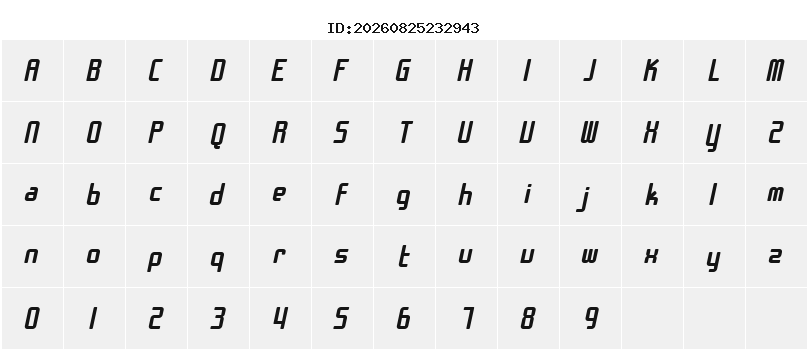
• Font Name: SF Chrome Fenders
• Font Style: Bold Oblique
• Full Font Name: SF Chrome Fenders Bold Oblique
• Designer: ShyFonts Type Foundry
SF Chrome Fenders.ttf is a modern, elegant sans-serif font designed for ultimate readability and visual harmony. Perfect for branding, headlines, web design, and print materials.